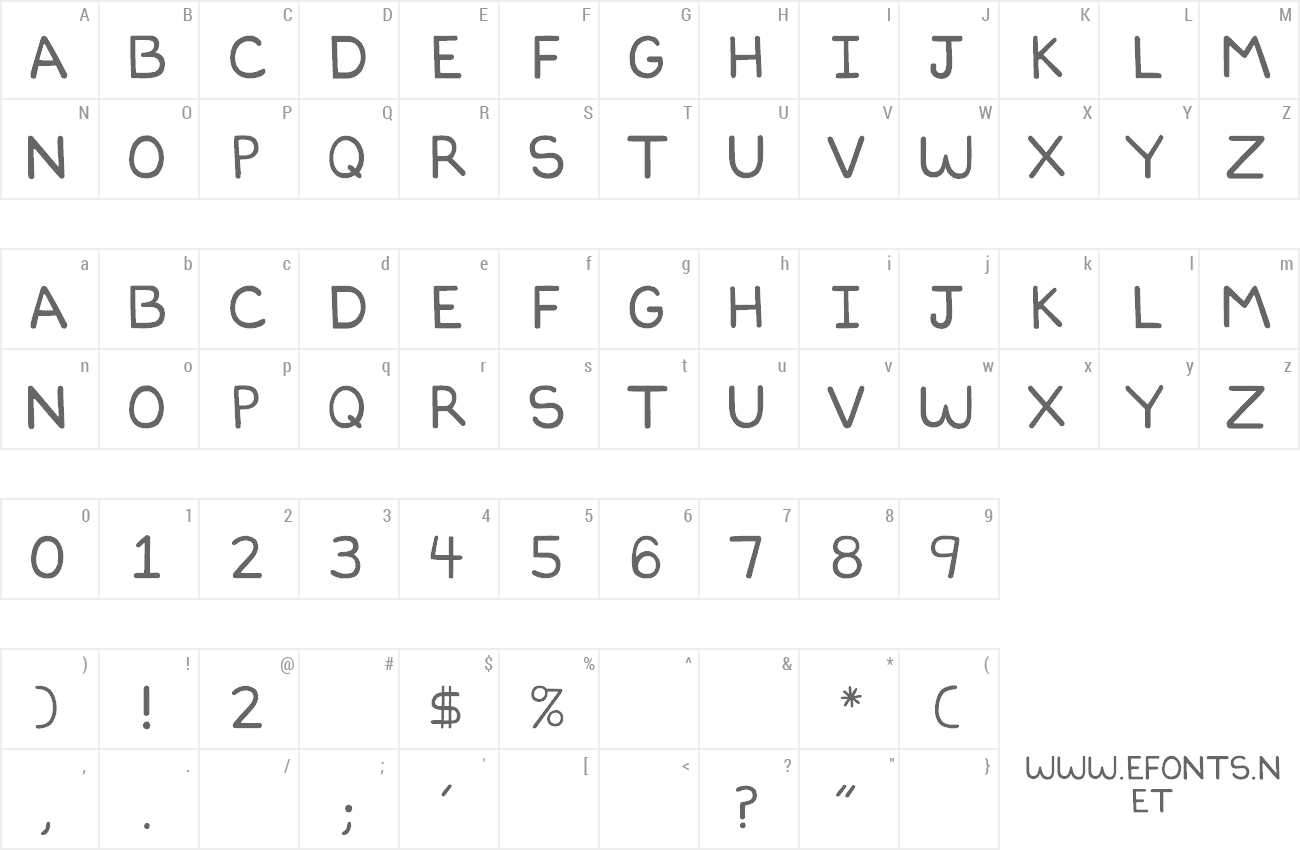
| Font name: | Dilbert font 2 |
| Author: | freefontfan |
| A font inspired by that used in the Dilbert comic strips. Please note that this is an incomplete font: Lower case and upper case letters are the same, and many punctuation marks have not been established. |